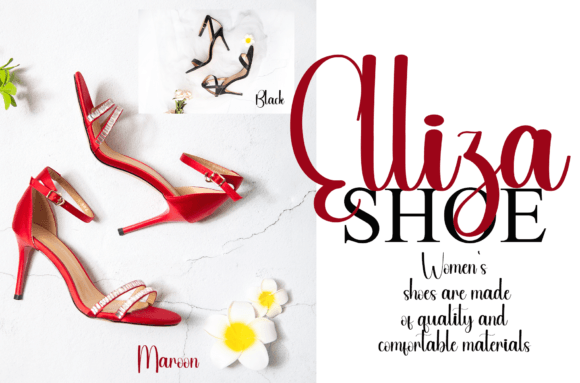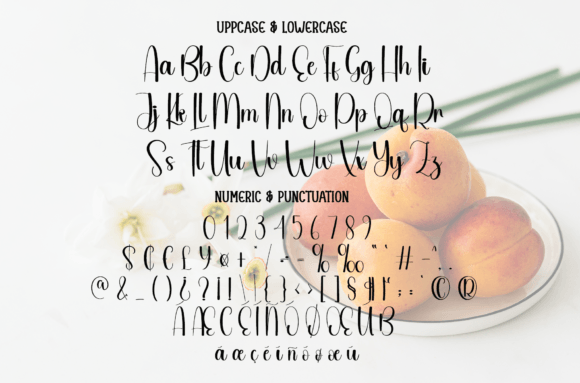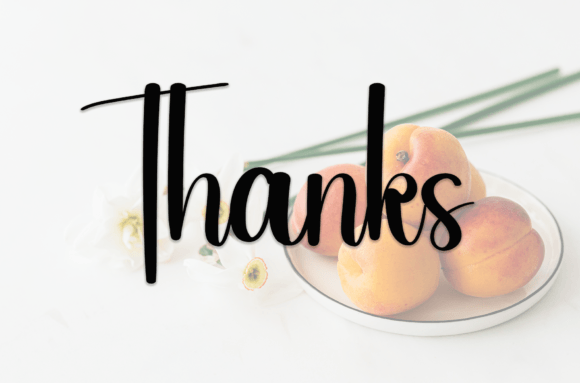
Apricot Font
Apricot is a sweet and friendly handwritten font. Fresh and neat, this font is ideal for writing wedding invitations, cards, or any other design that might need a fun touch!